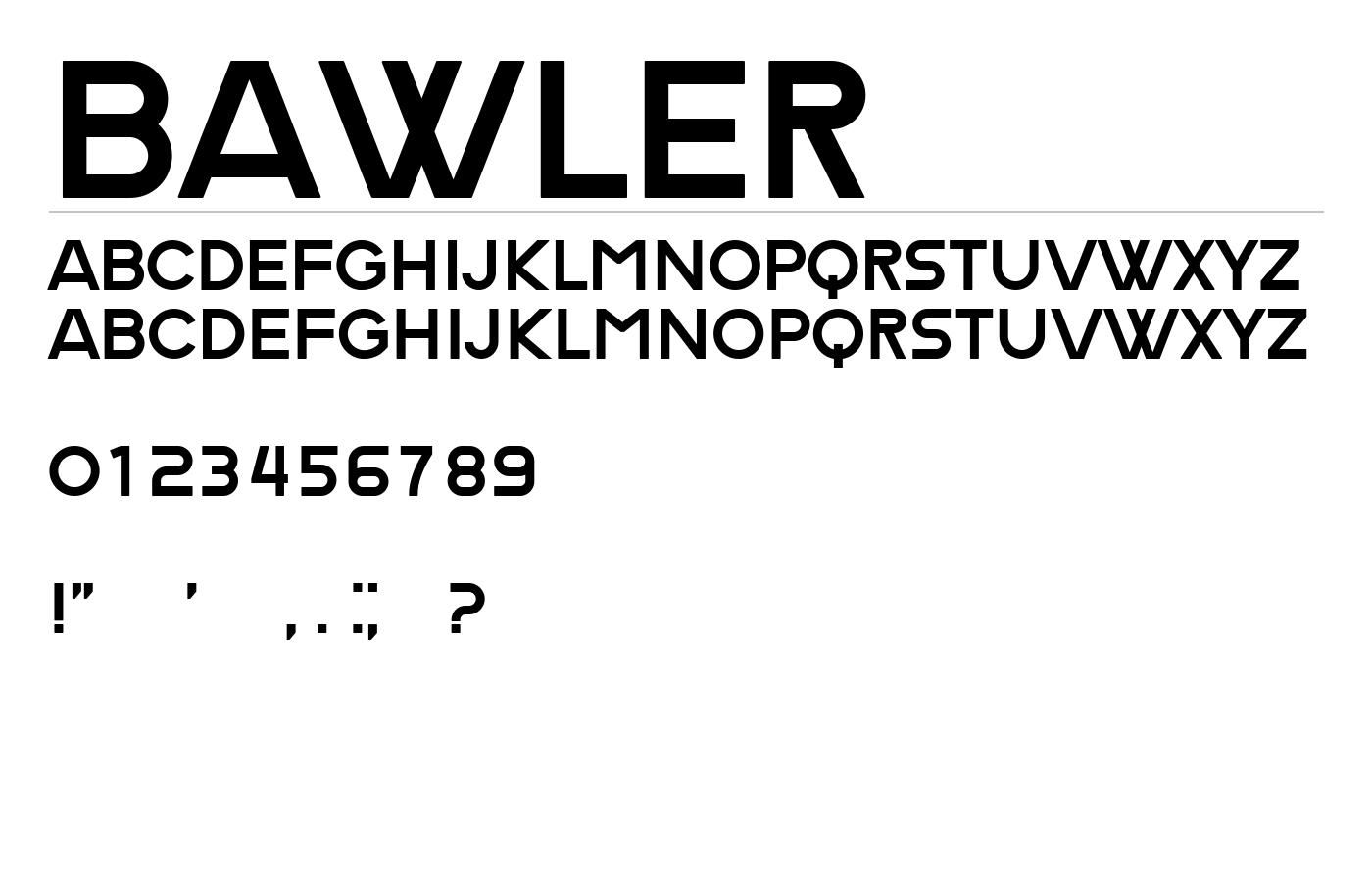
Bawler is a bold, geometric sans serif font characterized by its strong, clean lines and consistent stroke weight, giving it a modern and industrial feel. Its slightly condensed proportions and unique letter shapes, like the angled leg on the "R" and the distinctive "Q" tail, make it stand out, perfect for impactful headlines, logos, and contemporary branding that demands clarity and a confident presence. This font works well in design projects that aim for a sleek, professional, and forward-thinking look.
Bawler Font
About Bawler Font